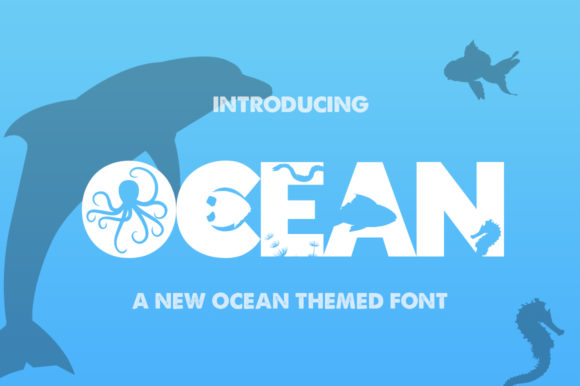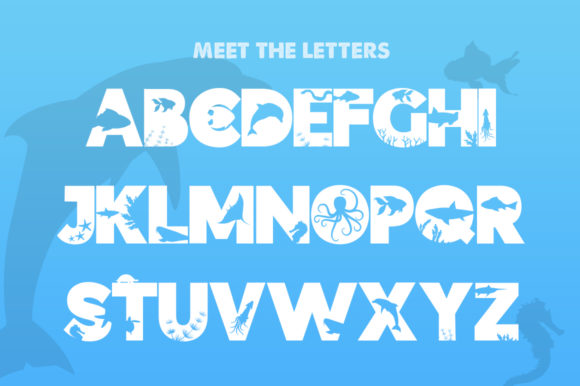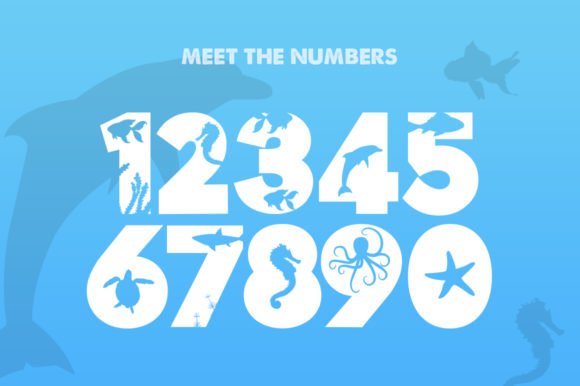
Ocean Font: A Playful Display Font for Nautical & Cute Designs
About the Ocean Font
The Ocean Font is here to transform your projects with its distinctive character and style. Ocean is a friendly display font featuring nautical designs on each character. Fall in love with its oceanic appeal!
Ocean’s playful, friendly personality makes it ideal for headlines, logos, and short-form text in branding projects related to leisure, travel, or children’s products. It also works well on packaging for nautical-themed goods or summer-oriented items. Avoid using Ocean for body text or long paragraphs; its decorative nature compromises readability in extended use.
The font’s whimsical style pairs well with clean sans-serif fonts like Open Sans for a balanced contrast, or a more geometric sans-serif such as Futura for a modern, sophisticated feel. For a touch of elegance, consider pairing Ocean with a delicate script font like Great Vibes, but use it sparingly.
Ocean’s overall mood is lighthearted and approachable, best suited for projects that evoke feelings of fun and relaxation. Avoid using it for projects requiring seriousness or formality.
Ocean Font Usage Examples
Ocean Font Example